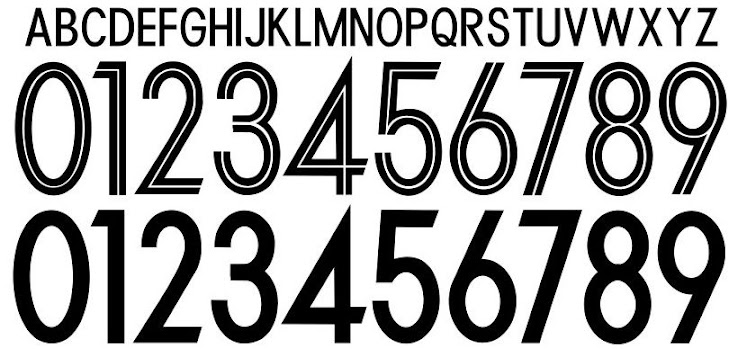
In Detail | ALL Unique Nike 2018 World Cup Kit Fonts
In opposite to Adidas, whose teams will all use the same jersey font, Nike have designed bespoke fonts for teams playing at this year’s FIFA World Cup. We take a look at all Nike 2018 national team jersey names and numbering. Thanks to nss mag and Switch Image Project.
Nike 2018 World Cup Fonts
Brazil
The most extraordinary-looking Nike 2018 World Cup kit font, the Nike Brazil 2018 World Cup shirt names and numbering style reflects Brazil's vibrant lifestyle.
England
The England 2018 World Cup kit font has been designed by Craig Ward, a British-born Design Director who has already created typefaces for the likes of Calvin Klein Adobe, Starbucks and MasterCard. The Nike England 2018 World Cup kit letters and numbers ae inspired by Johnston and Gil Sans.
France
A classy design, the France 2018 World Cup font includes light blue hexagons, inspired by the geometric shape of France.
Nigeria
Nigeria's 2018 World Cup font boasts a modern. bold look.
Portugal
The new Portugal 2018 World Cup home kit font is golden and has a classically Portuguese aesthetic. The away jersey font contains a stylized version of The Military Order of Christ's cross, a Lusitan national symbol.
Basic Font - Australia, Croatia, Poland, Saudi Arabia, South Korea
For Australia, Croatia, Poland, Saudi Arabia, South Korea, Nike did not design a bespoke jersey typeface. The Nike 2018 basic font for these teams features a clean look with the respective federation crest on the bottom.
'Non World Cup Fonts' - Nike China, Chile, Netherlands & USA
China
Chile
Netherlands
USA
Nike also designed bespoke kit typefaces for China, Chile, Netherlands and USA. We won't see any of these in the World Cup, unfortunately.